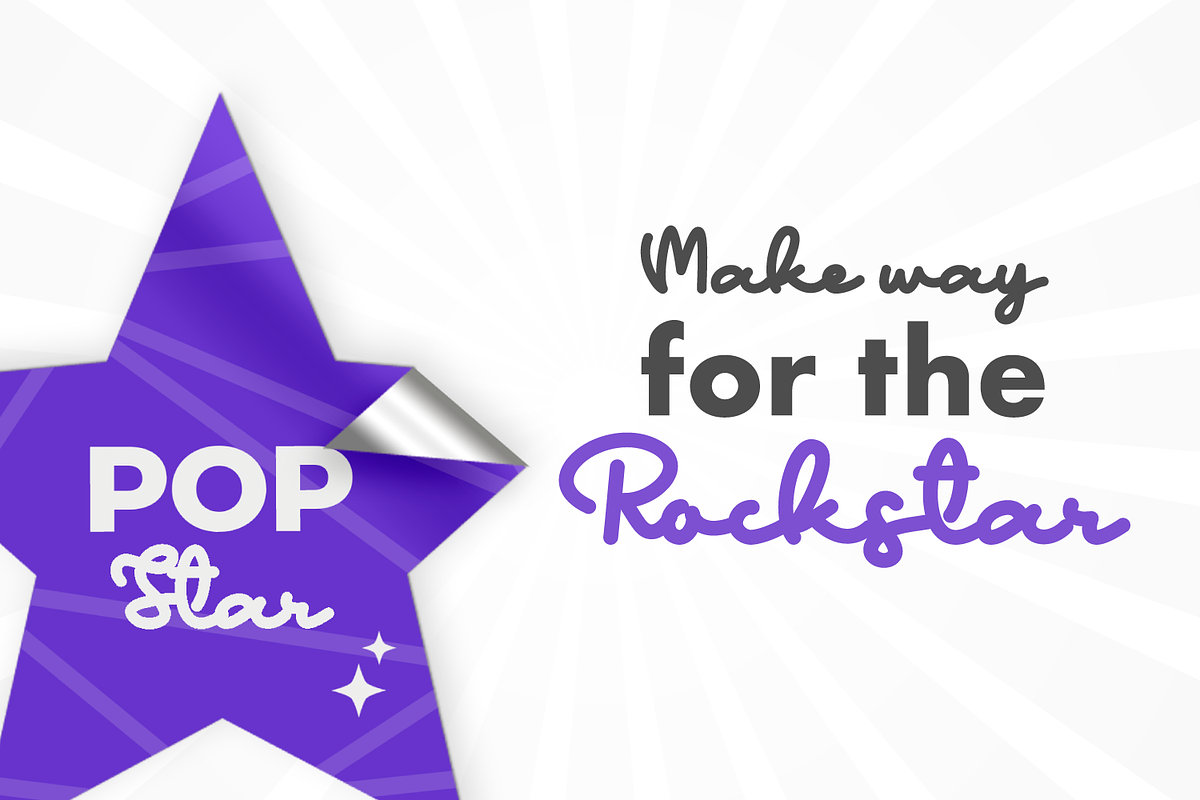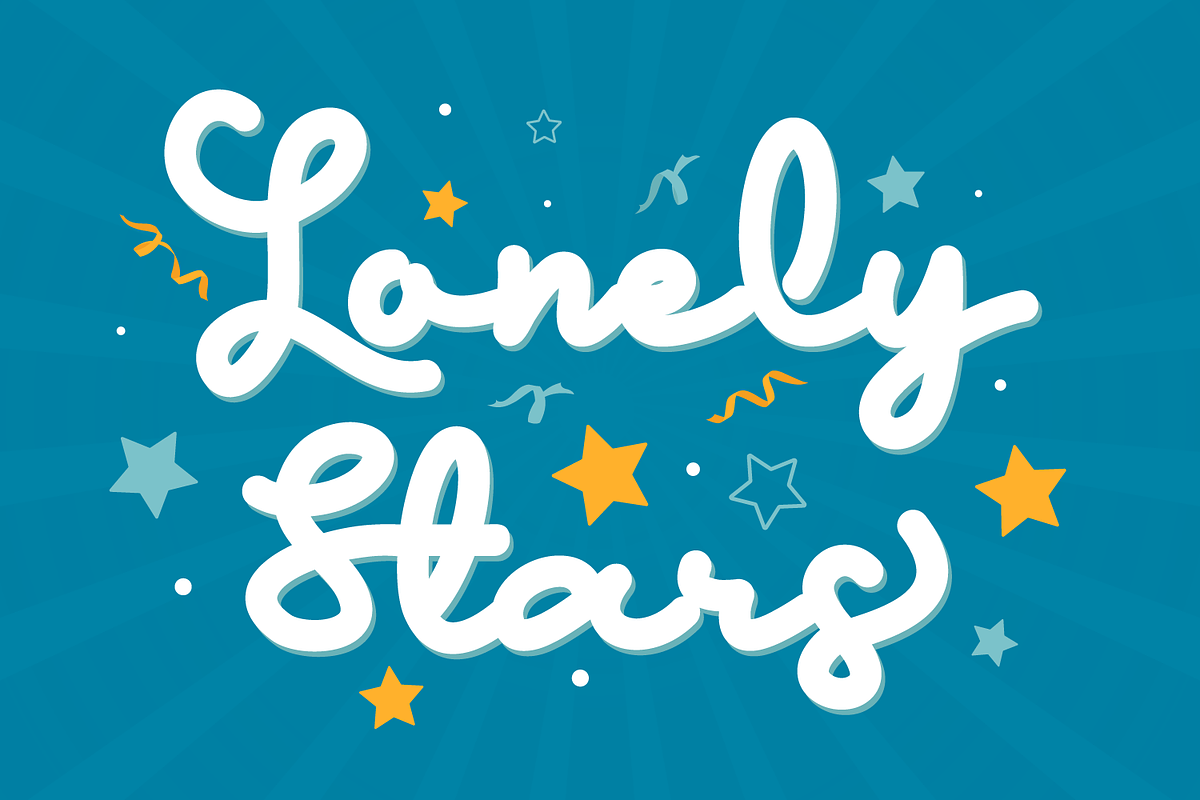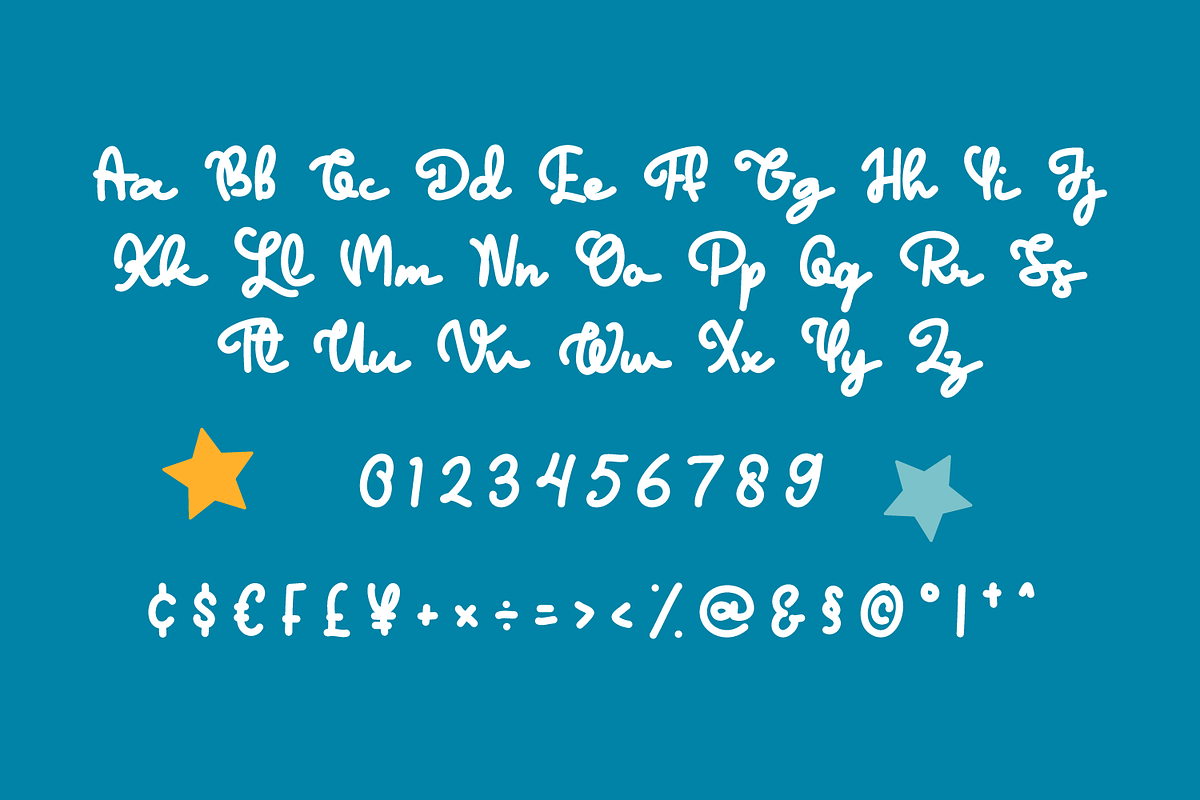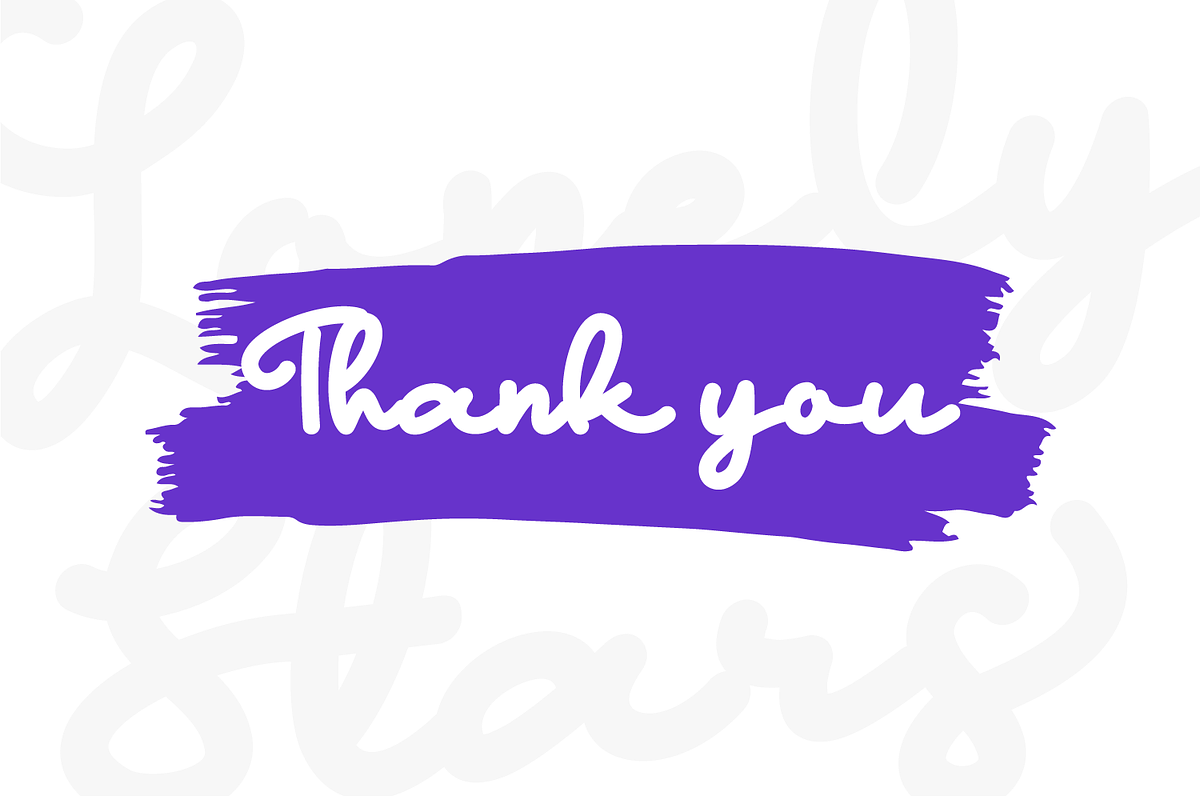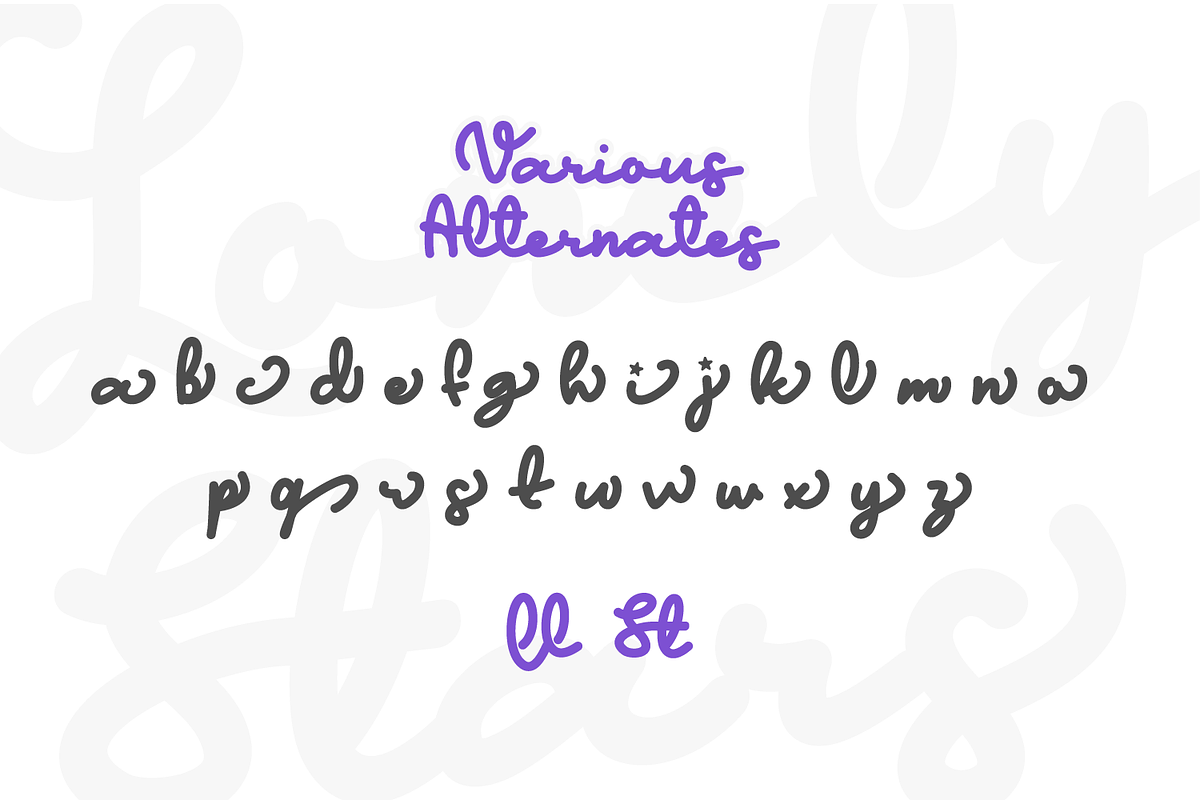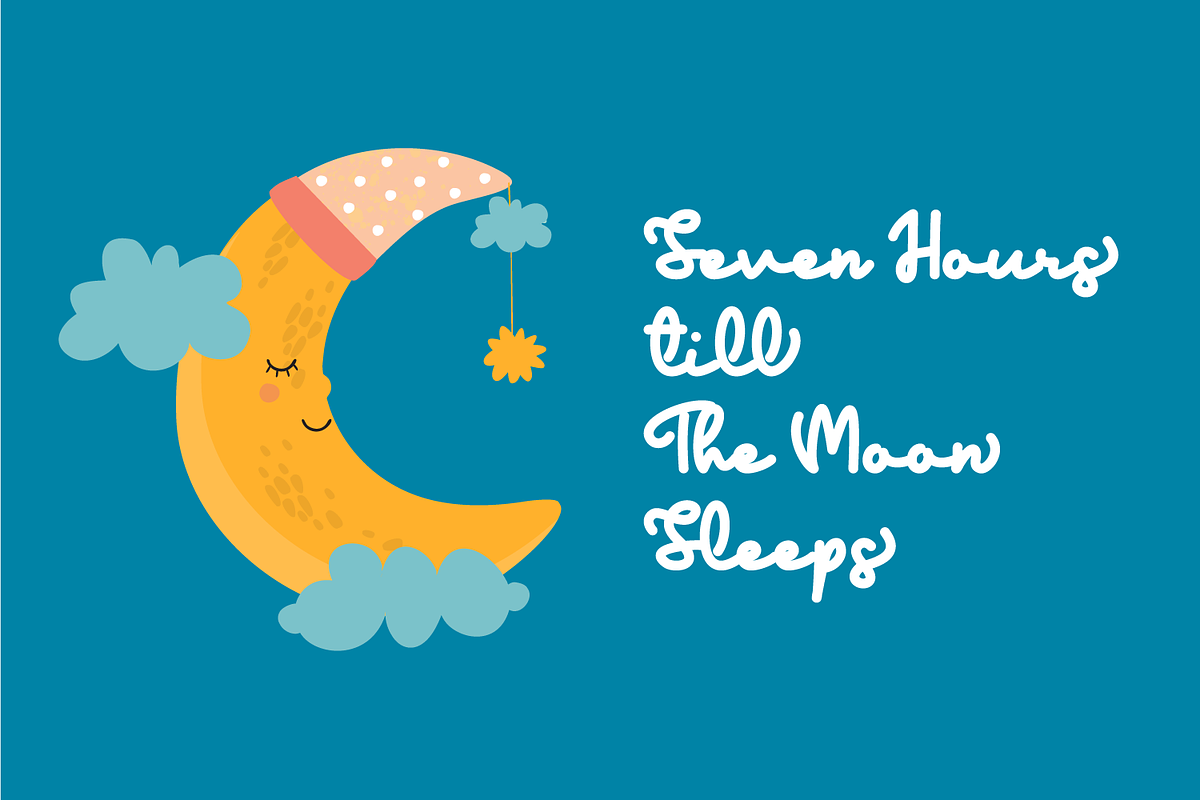
Lonely Star
Lonely Star is a cute monoline script with an happy mood. It is hand-drawn font that comes for creating whimsical and fun designs. Lonely Star turns our nostalgia for summer into a dynamic and vivacious font.
Lonely Star comes in various alternates making the font versatile and useful both for web and print; think websites, posters, menus, logotypes, cards, signage, packaging and whatnot. Rising Star is friendly, sturdy and it makes a statement, but most of all, it is fun to play with.
Lonely Star is perfect for your brand!